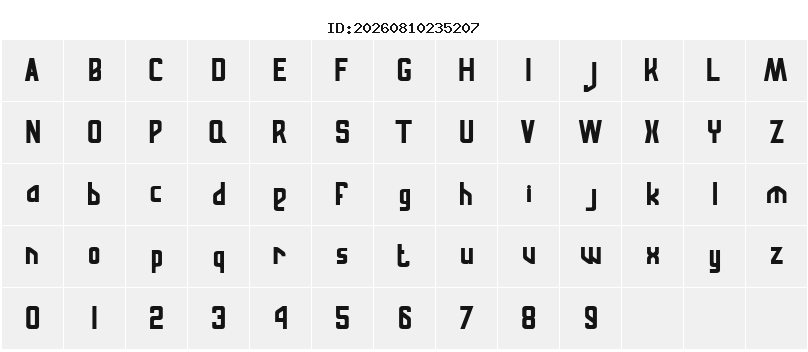
RussianQuality Preview
• Font Name: RussianQuality
• Font ID: Smirnoff Normal
• Full Font Name: RussianQuality Normal
• Version: 2.0
• PostScript Name: RussianQualityNormal
About RussianQuality.ttf
RussianQuality.ttf is a modern, elegant sans-serif font designed for ultimate readability and visual harmony. Perfect for branding, headlines, web design, and print materials.